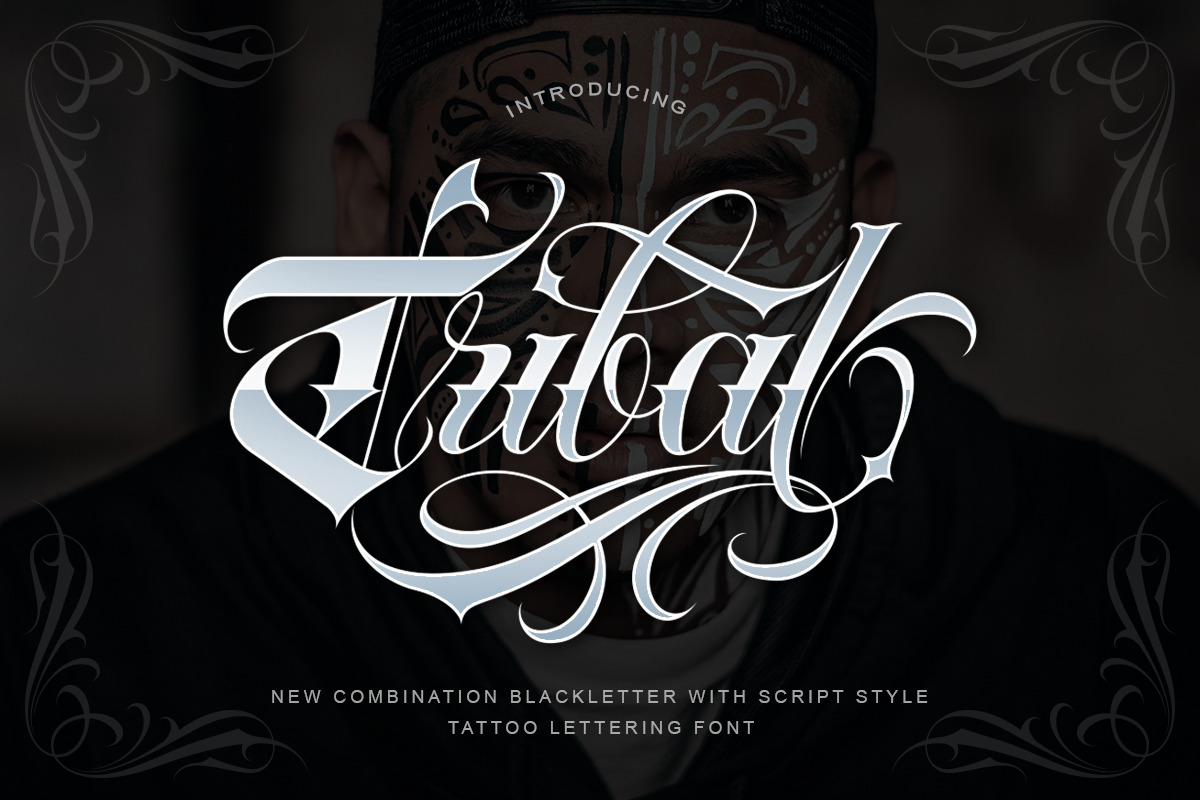
Tribal Font
Introducing of our new product the name Tribal Font. New combination Blackletter with Script style perfect for tattoo design, logo studio tattoo, shirt design,poster, branding, etc.